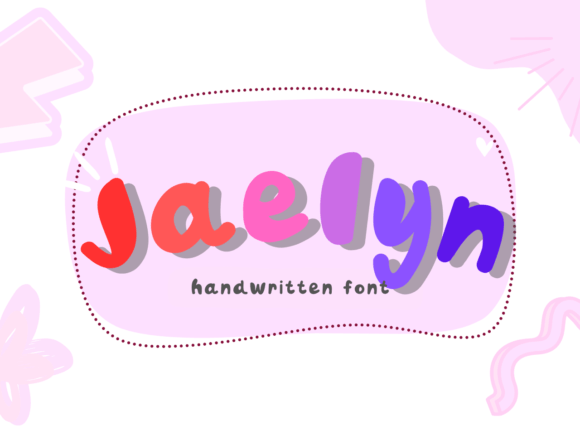
In the realm of vibrant typography, where boundless creativity meets visual enchantment, there exists a font capable of transforming your digital designs into captivating masterpieces: Jaelyn Font.
With its delightfully whimsical appearance and buoyant curves, Jaelyn Font is the embodiment of playfulness and charm. Picture the joy of receiving a cherished note penned in the delicate strokes of Jaelyn's delightful lettering or the sheer delight of crafting personalized invitations adorning your child's name, flowing effortlessly in the charming dance of Jaelyn's characters. It's an experience sure to ignite a spark of pure bliss in the hearts of both the writer and the recipient.
As a parent, your words carry immeasurable significance. They have the power to uplift, inspire, and shape the lives of your precious children. Jaelyn Font empowers you to convey these heartfelt messages in an unforgettable manner, transforming ordinary words into cherished keepsakes. Imagine the radiant smiles and sparkling eyes of your little ones as they discover their names, crafted with tender love and whimsy, gracing cards, letters, or cherished keepsakes. Jaelyn Font transforms the act of writing into an extraordinary experience, leaving an enduring imprint on the hearts and minds of both parents and children.
Unleash your artistic flair and let your creativity soar with Jaelyn's boundless versatility. Whether you're crafting enchanting logos that exude personality, designing eye-catching posters that command attention, or creating captivating social media graphics that dance off the screen, Jaelyn Font rises to every occasion with effortless grace. Its playful nature lends itself seamlessly to a myriad of digital projects, adding a touch of whimsy and charm that captivates audiences and leaves a lasting impression.
Step into the world of Jaelyn Font and embark on a journey of limitless creativity. Let your imagination run wild as you weave enchanting tales with this delightful font. Experience the joy of connecting with loved ones through the magic of handwritten notes adorned with Jaelyn's captivating charm or leave an indelible mark on your digital creations with designs that exude a unique and heartfelt personality. Jaelyn Font is more than just a font; it's an invitation to unleash your inner child, embrace the wonders of imagination, and create moments of pure delight.